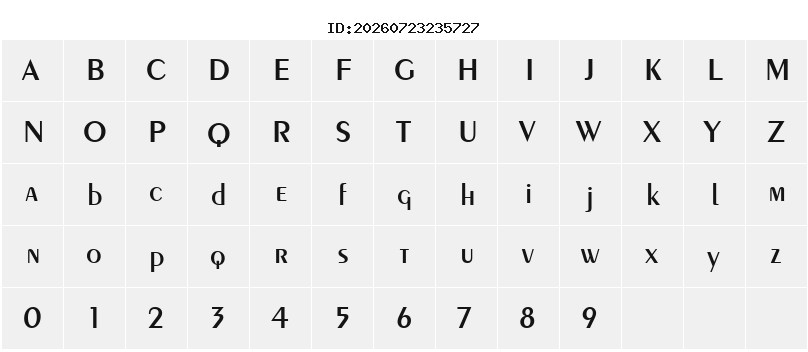
Exotc350 DmBd BT Preview
• Font Name: Exotc350 DmBd BT
• Font Style: Demi-Bold
• Font ID: Exotic 350 Demi-Bold
• Full Font Name: Exotc350 DmBd BT Demi-Bold
• PostScript Name: Exotic350BT-DemiBold
About Exotc350 DmBd BT.ttf
Exotc350 DmBd BT.ttf is a modern, elegant sans-serif font designed for ultimate readability and visual harmony. Perfect for branding, headlines, web design, and print materials.